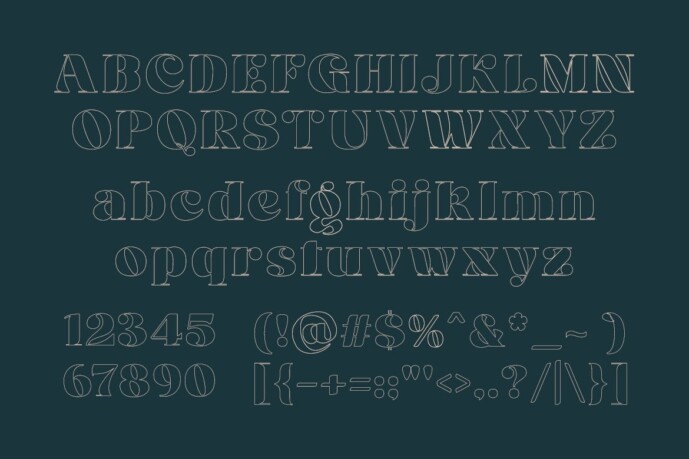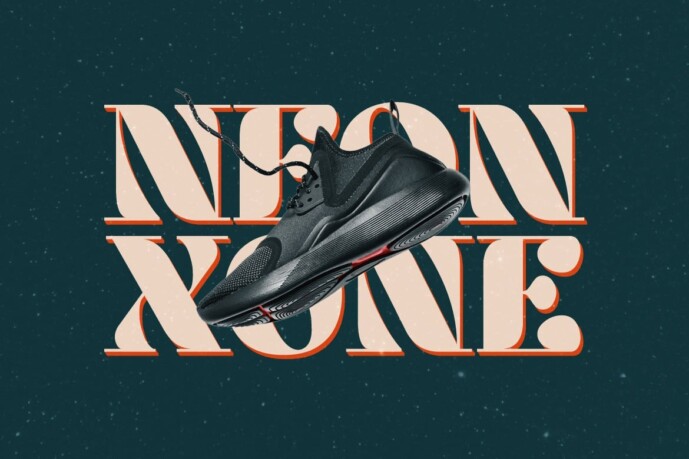
Nuxo Font
Designer: hardseems
Nuxo Font – Bold display font with a retro, funky and playful vibe. Perfect for adding a nostalgic touch to logos, headlines and packaging